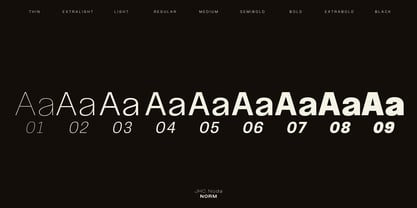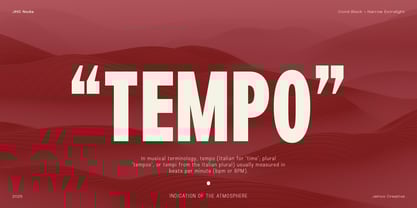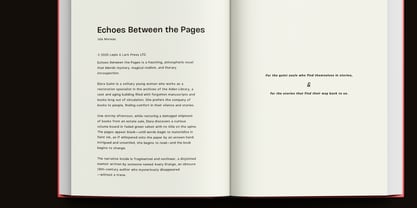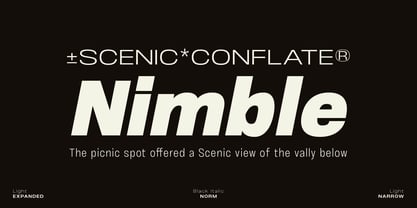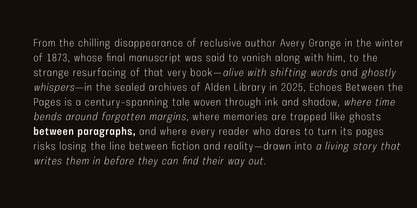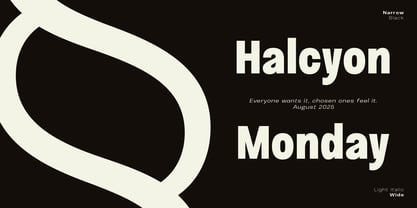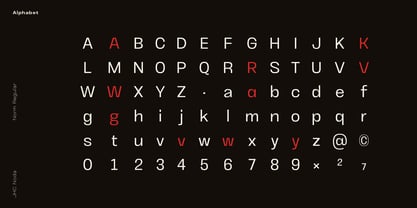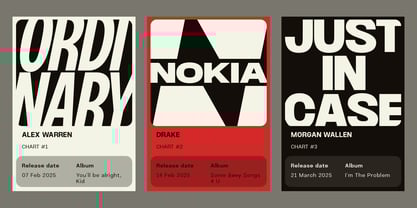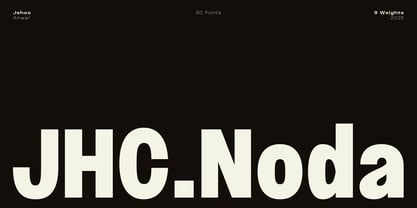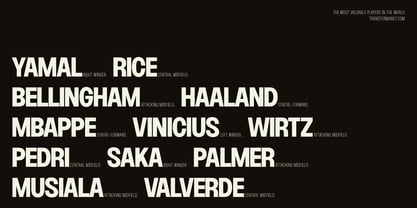
JHC Noda
Die Schriftfamilie JHC Noda wurde von Anwar Patihan entworfen und von Jehoo Creative veröffentlicht. JHC Noda enthält 90 Stile und Familienpaketoptionen.
JHC Noda is a brutalist sans serif typeface built for bold visual impact and structural clarity. Featuring a complete range of widths from Condensed, Narrow, and Normal to Wide and Expanded JHC Noda offers unmatched flexibility without losing its raw, uncompromising edge.
With sharply defined forms and rigid geometry, it captures the brutalist spirit: unapologetically bold, function-first, and visually striking. Each width is paired with an italic counterpart, giving designers control over contrast and emphasis while maintaining the font’s industrial strength.
Whether used in editorial, poster design, or brand systems, JHC Noda is made to challenge convention and command attention.